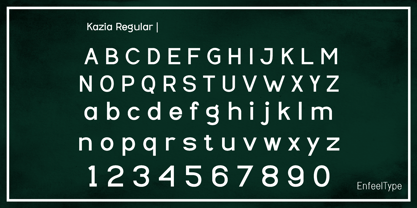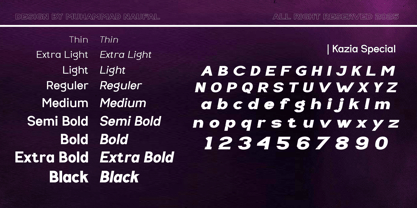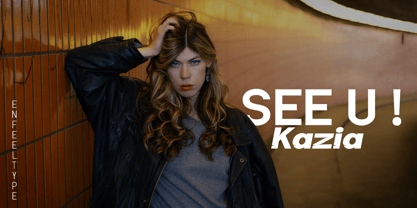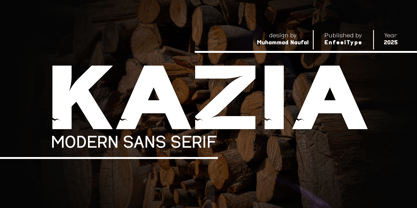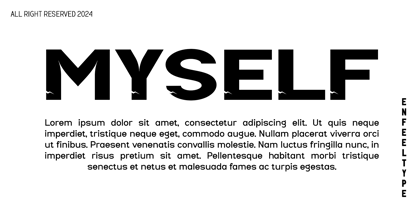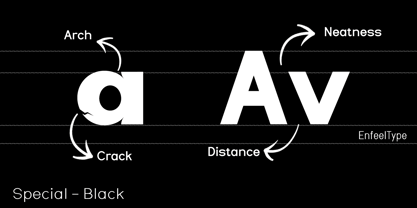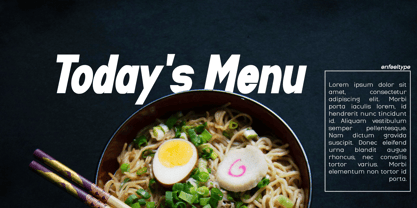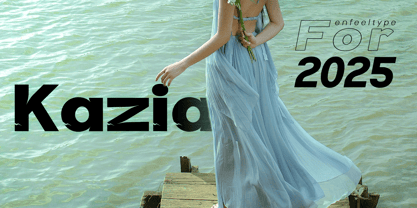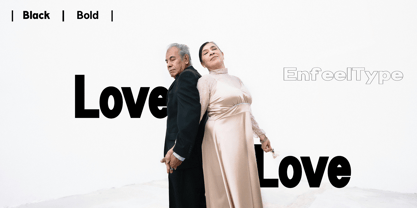
Kazia
by Enfeeltype
The Kazia Font Family was designed by Muhammad Naufal and published by Enfeeltype. Kazia contains 40 styles and family package options.
Kazia is a family of delicate and versatile fonts that blend modern elegance with a touch of natural warmth. The name Kazia comes from the Hebrew word for “cinnamon” - evoking feelings of comfort, subtle spice, and timeless beauty. Designed with character and clarity in mind, Kazia features smooth curves, balanced proportions, and graceful terminals. Whether you're creating sophisticated branding, editorial layouts, minimalist packaging or digital content, Kazia adapts beautifully across all media. The font covers a wide range of weights and styles, offering flexibility for both headings and body text. Each letterform is crafted to feel familiar yet distinct - perfect for designers who want a clean yet expressive typeface that leaves a lasting impression.
Designers: Muhammad Naufal
Publisher: Enfeeltype
Foundry: Enfeeltype
Design Owner: Enfeeltype